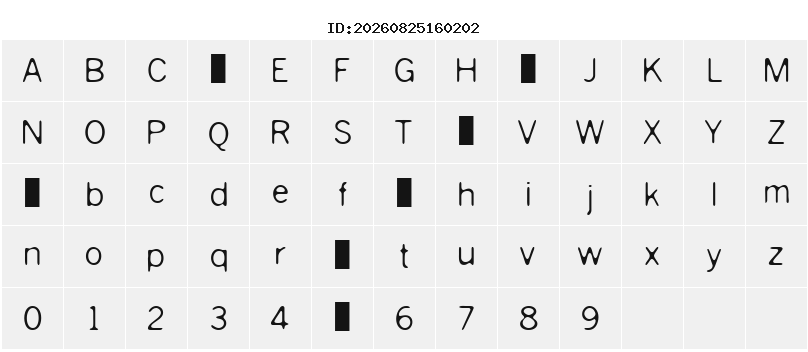
SLdemo Preview
• Font Name: SLdemo
• Full Font Name: SLdemo
About SLdemo.ttf
SLdemo.ttf is a modern, elegant sans-serif font designed for ultimate readability and visual harmony. Perfect for branding, headlines, web design, and print materials.